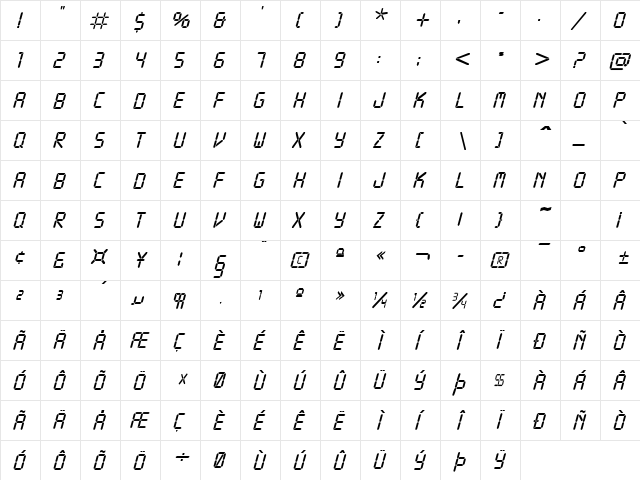
Readout Italic Font Preview
Readout Italic
Design Context for Readout Typeface
Readout is a composed and adaptable typeface that performs quietly and consistently across a wide range of design contexts. The dynamic lean of this cut emphasises speed and emphasis in any layout.
Pro Tip: Try Readout for annotation and caption copy alongside an upright companion — the contrast in angle creates a dynamic but ordered typographic system.